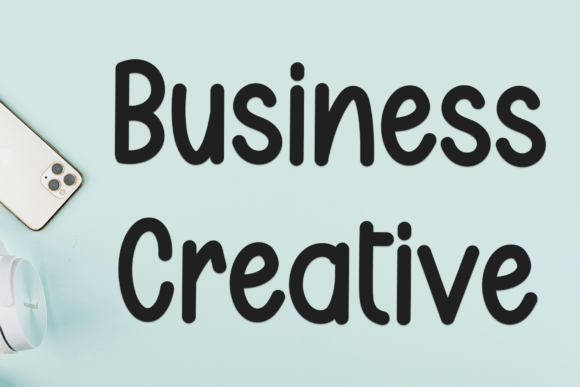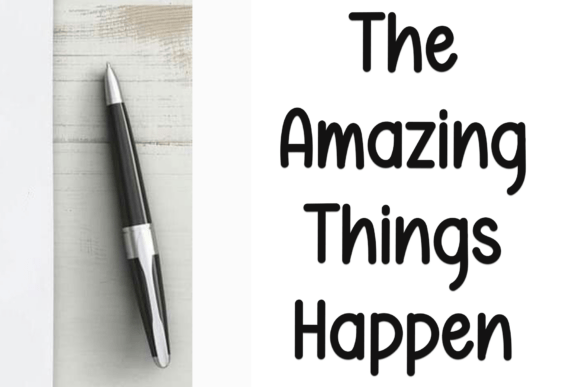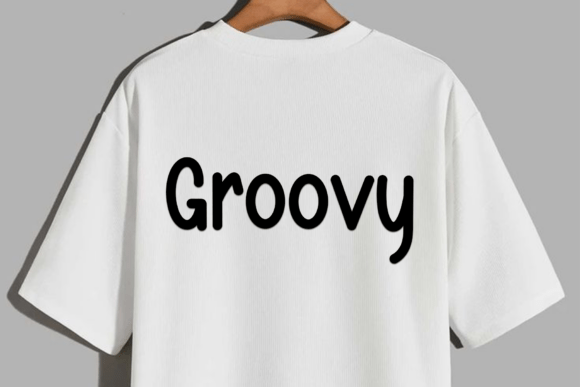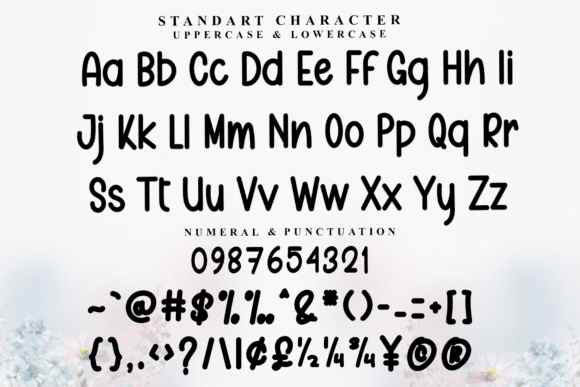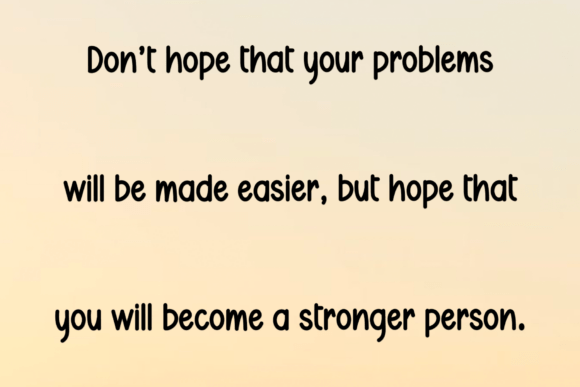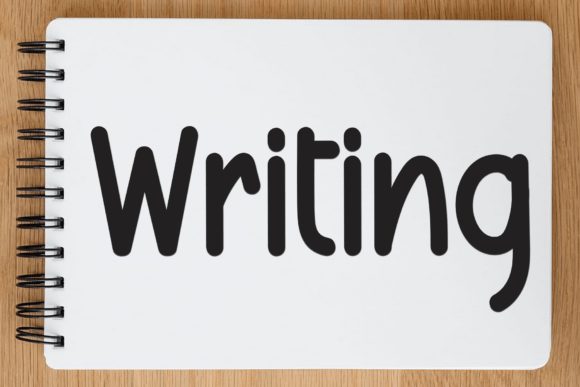
Introduction to Notes Quote Font
Imagine yourself sitting by the fireplace, surrounded by twinkling lights and the warmth of the holiday season. As you start brainstorming ideas for your festive design project, you can’t help but feel the excitement building up inside. You want to create something truly special – a design that captures the essence of the season and leaves a lasting impression on your audience. That’s where the Notes Quote Font comes in – a high-quality design resource that adds a touch of magic to your creative project.
This enchanting font is perfect for designers who want to infuse their holiday-themed projects with a sense of whimsy and nostalgia. With its decorative elements and transparent background, the Notes Quote Font is a valuable addition to any design toolkit. Whether you’re working on a greeting card, gift tag, or other holiday project, this font is sure to bring a cheerful ambiance to your words. And the best part? It’s available for free download, making it an accessible resource for designers of all levels.
Notes Quote Font
- High-quality design resource ideal for creative projects, offering a unique aesthetic.
- Features a large character set, covering a wide range of languages and characters.
- Designed with a focus on readability, ensuring clear and easy-to-understand typography in your creative project.
Honest Review: Notes Quote Font
As a designer, I’m always on the lookout for high-quality design resources to elevate my creative projects. Recently, I stumbled upon the Notes Quote Font, and I’m excited to share my honest review.
- The Notes Quote Font features a unique, hand-written style that adds a personal touch to any design.
- The font is highly customizable, allowing me to adjust the opacity, color, and size to fit my project’s needs.
- The transparent background makes it easy to use with images or other design elements.
- The font may not be suitable for formal or professional designs, as it has a more casual, handwritten feel.
- The font family is relatively small, which may limit its use in certain design contexts.
Overall, I’m impressed with the Notes Quote Font’s potential to add a creative touch to designs. While it may have some limitations, its unique style and customization options make it a valuable resource for designers looking to add a personal touch to their projects.
For optimal use, make sure to pair the Notes Quote Font with a clear and simple background. Experiment with different font sizes and styles to create visual interest. You can also use the Notes Quote Font in combination with other design elements to create a unique and eye-catching design.
The Notes Quote Font is perfect for use in quotes, captions, and titles. It’s also great for creating social media graphics, presentations, and documents. Its high-quality design and transparent background make it a versatile and reliable design resource.
Alternatives to Notes Quote Font
Pacifico is a beautiful, elegant script font that can add a touch of sophistication to any design project. It’s perfect for creating a high-quality and professional look for your creative project. With its transparent background, Pacifico is ideal for use as a overlay or a quote font in your design. When to use: weddings, baby announcements, and other special occasions. It’s a great alternative to Notes Quote Font as it offers a more classic and timeless look.
Great Vibes is a modern script font that’s perfect for adding a touch of creativity to your design project. It’s great for use in social media posts, advertisements, and other marketing materials. With its high-quality design and transparent background, Great Vibes is a great alternative to Notes Quote Font for designers who want a more contemporary look. When to use: social media posts, advertisements, and other marketing materials.